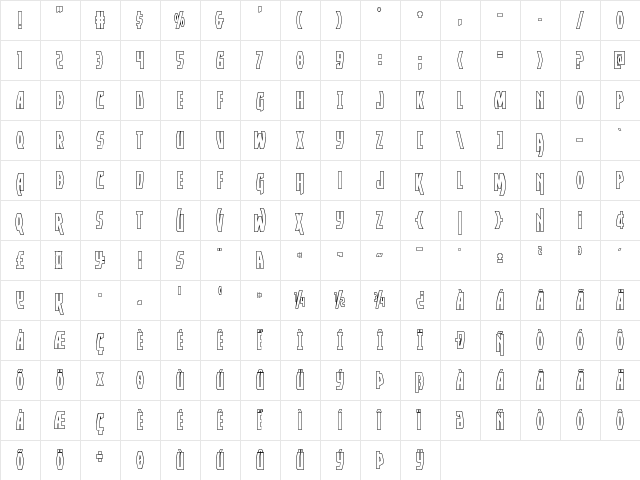
Yankee Clipper Outline Regular
Design Context for Yankee Clipper Outline Typeface
Yankee Clipper Outline brings ornamental detail and strong personality to headlines and identities, where visual impact matters more than quiet functionality.
Font Pairing: Pair with a clean neutral sans-serif for body copy to let Yankee Clipper Outline's character lead without overwhelming the composition.
Pro Tip: Treat Yankee Clipper Outline as the centrepiece of your typographic hierarchy. One strong heading set in a decorative face can carry an entire layout.